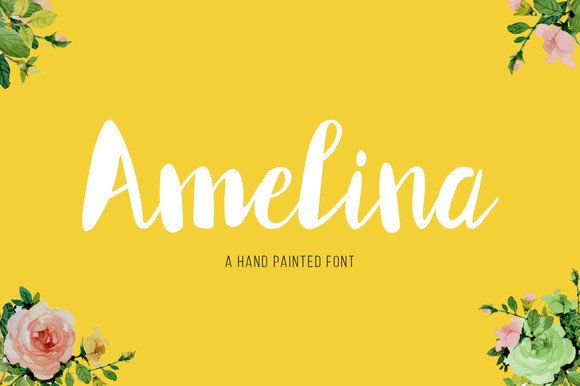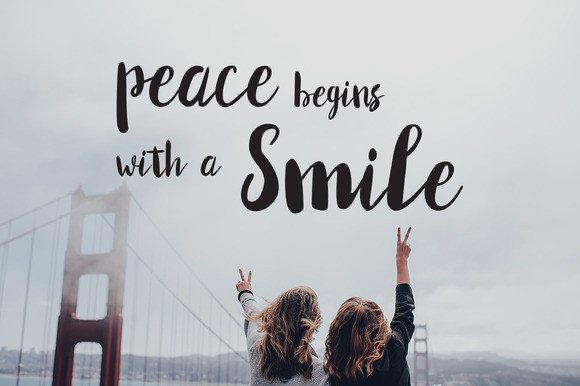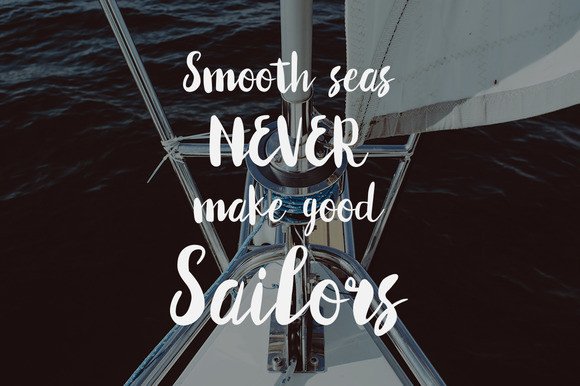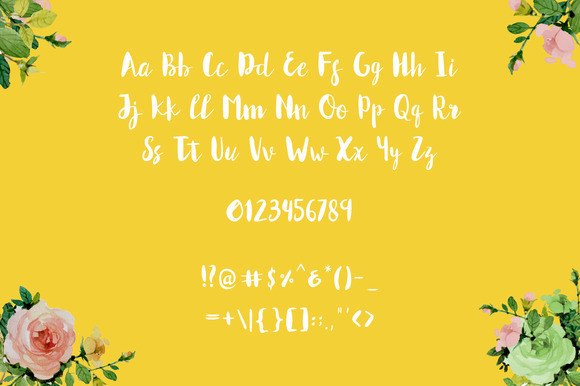
Amelina Font
About Amelina Font
Amelina is a beautiful, elegant hand-painted font. You can see it’s created with a fine brush and the letters consist out of beautiful thick parts and thin lines. The letters melt together nicely which makes it truly feels like a handwritten font. It’s like the designer just painted this on your screen.
Amelina works great on decorations in and around the house, invites, or even on shirts and sweaters.